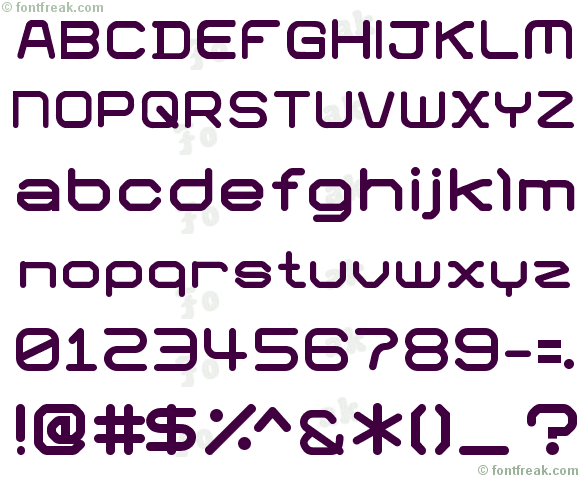
01 DigitGraphics
The 01Digit Graphics font, designed by David Chung, is a unique display typeface that embodies a modern, digital aesthetic. This freeware font stands out with its clean lines and geometric forms, making it a versatile choice for a variety of design projects. Characterized by its bold stroke weight and minimal contrast, the 01Digit Graphics font presents a contemporary look that is both eye-catching and functional. The spacing between characters is thoughtfully designed, ensuring legibility while maintaining a cohesive visual appeal.
This font is particularly effective for use cases such as technology-related branding, promotional materials for digital products, and eye-catching headlines for websites or apps. Its futuristic vibe makes it suitable for movie posters, especially in the sci-fi genre, as well as for promotional content in the tech industry. The 01Digit Graphics font can also be utilized in event flyers that aim to convey a modern, sleek atmosphere, or in social media graphics targeting a tech-savvy audience.
Targeting graphic designers, small business owners, and content creators, the 01Digit Graphics font provides a fresh option for those looking to make a statement with their typography. Its free availability encourages experimentation and creative freedom, allowing users to incorporate this font into various projects without financial constraints.
What sets the 01Digit Graphics font apart is its unique blend of functionality and style. David Chung has crafted a typeface that not only captures the essence of modern design but also delivers versatility across multiple applications. Whether you are designing a logo, creating a website, or producing marketing materials, the 01Digit Graphics font free download offers an innovative solution that elevates your work to new heights.